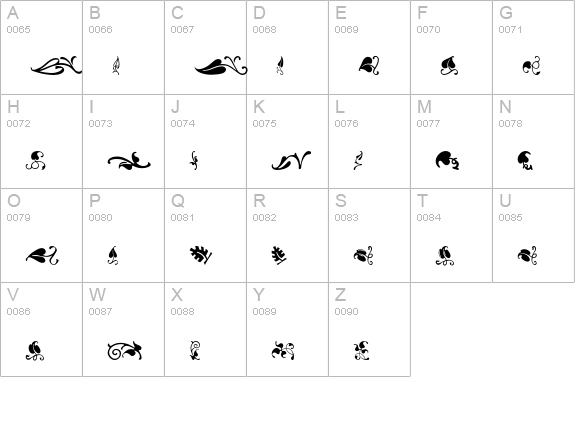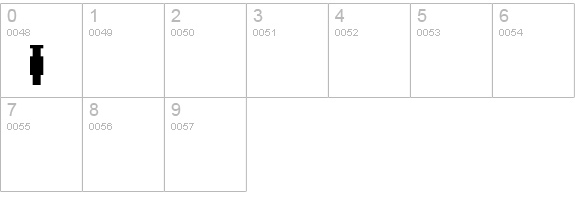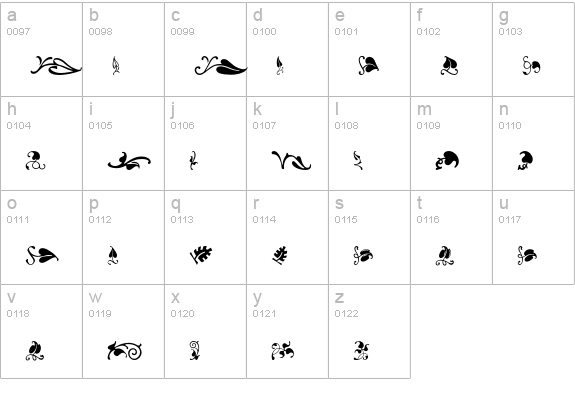
VineLeaves2XH Font Details
VineLeaves2XH font is a stunning display typeface that effortlessly captures the essence of nature's beauty. With its intricate vine leaf motifs delicately intertwined, this font exudes a sense of elegance and grace. Each letter is meticulously crafted, showcasing the fine attention to detail that went into its design. This font is perfect for various design projects, whether it be for invitations, logos, or branding materials. Its unique and captivating style will surely make a lasting impression on any audience. The curvaceous nature of the vine leaves adds a touch of sophistication, while still maintaining a playful and whimsical feel. One of the best features of VineLeaves2XH font is that it is free. Yes, that's right! This incredible font is freely available to download at FontsMarket.com. Now you can bring a touch of nature's elegance to your designs without breaking the bank. Whether you're a professional designer or a casual enthusiast, the accessibility of this font allows everyone to enjoy its beauty and versatility. So why wait? Download VineLeaves2XH font today and explore the endless possibilities it offers. Let your creativity flourish as you incorporate this breathtaking font into your next project. With its free availability and stunning design, VineLeaves2XH font is truly a must-have for anyone looking to add a touch of natural beauty to their designs.